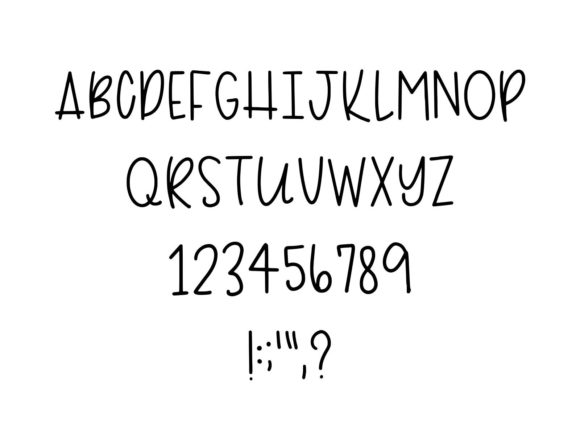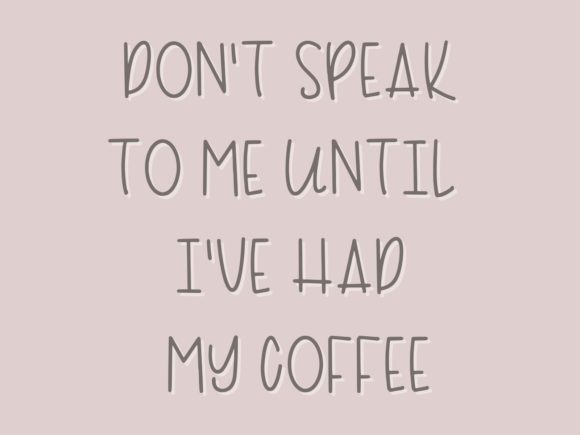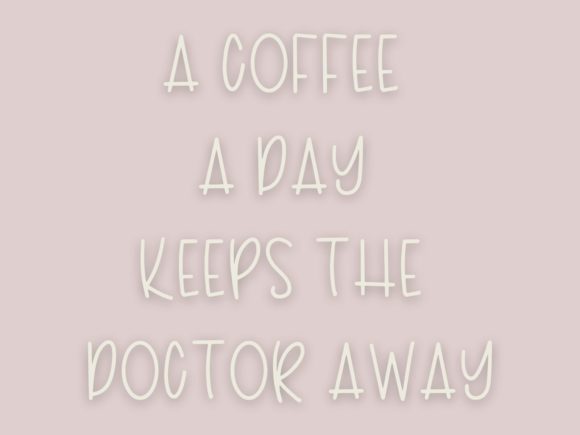
Iced Coffee Font
About Iced Coffee Font
Iced coffee is a tall and flirty handwritten font. Somewhat artistic and friendly, this typeface is perfect for word art, quotes, shirts, stationery designs, product packaging, branding, and so much more!